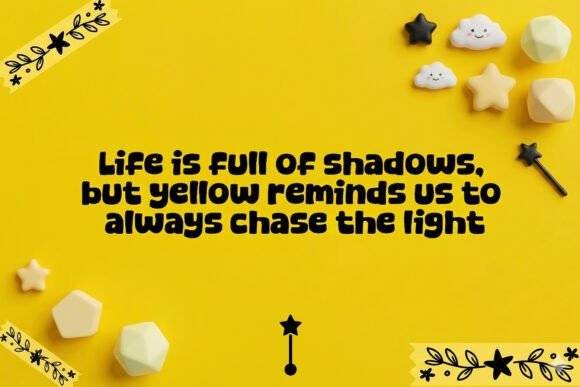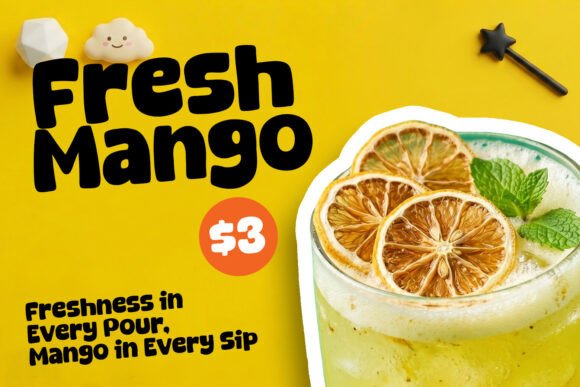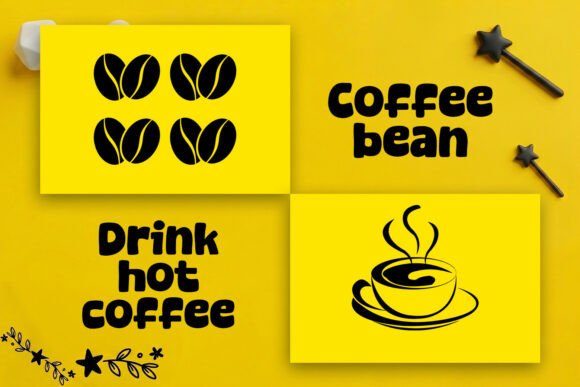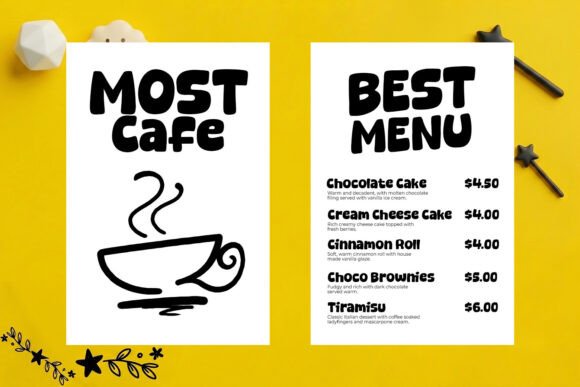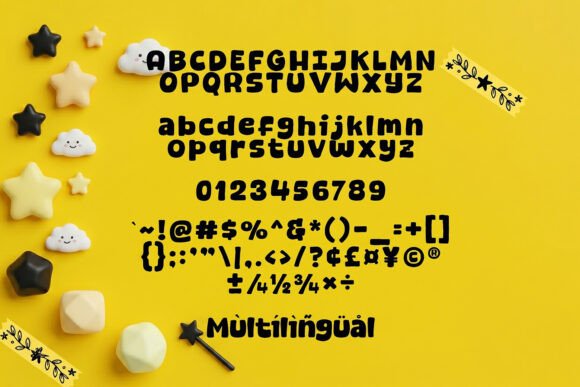
Introduction to Magic Yellow Font
Do you remember that moment when you stumbled upon the perfect font, and suddenly your creative project came to life? It’s that feeling of excitement and satisfaction that makes all the hard work worth it. For designers, finding the right font can be the difference between a mediocre design and a stunning one. And today, we’re excited to introduce you to the Magic Yellow Font, a modern and cute display font that’s sure to elevate your creative projects.
With its unique blend of style and versatility, the Magic Yellow Font is perfect for posters, logos, magazines, book covers, banners, and many more. Whether you’re working on a free download project or a high-end design, this font is sure to add a touch of magic to your work. Plus, with a transparent background, you can easily match it to any design resource, making it a valuable addition to your creative toolbox.
Key Features of Magic Yellow Font
- Unique, vibrant font with a transparent background, allowing for seamless integration into any design
- Large character set, including uppercase and lowercase letters, numbers, and punctuation, making it ideal for extensive use
- High-resolution font, designed at 300 DPI, ensuring crisp and clear text even at large sizes
- Perfect for use in digital design, print media, and web development, thanks to its versatility and high-quality design
Honest Review: Magic Yellow Font
As a designer, I’m always on the lookout for unique and high-quality design resources to enhance my creative projects. Recently, I stumbled upon the Magic Yellow Font, and I must say it’s been a game-changer for my designs.
- The transparent background option provides flexibility for use in various design contexts, from logos to digital products.
- The font’s high-quality design ensures that it looks stunning in any creative project, from print to digital media.
- The font’s playful and vibrant style makes it perfect for projects that require a touch of whimsy and personality.
- The font may not be suitable for projects that require a more serious or formal tone.
Overall, I’m thoroughly impressed with the Magic Yellow Font. Its unique design and high-quality performance make it an excellent addition to any designer’s toolkit. If you’re looking for a fun and creative way to elevate your designs, I highly recommend giving the Magic Yellow Font a try.